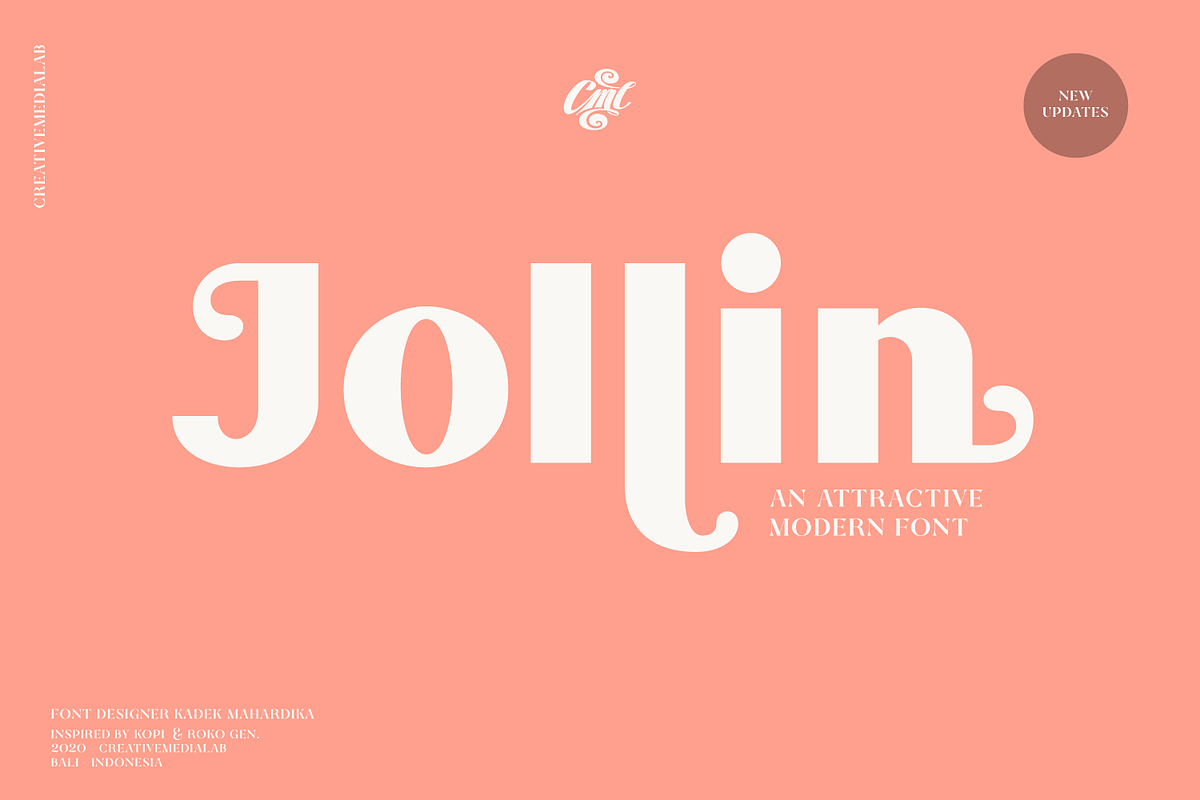
Jollin Font Free Download
Please note, you must purchase this font for commercial use. However, you can easily download Jollin Font Free Download for personal use and testing purposes. Jollin Font is a playful and modern typeface designed to add a touch of whimsy to your designs. Perfect for creative projects, children's materials, branding, and social media graphics, this font features rounded letterforms and a fun, approachable feel. Jollin Font Free Download works beautifully for projects that require a casual, friendly, and lively typography style. Whether you're creating a logo, a playful poster, or unique invitations, this font will bring a fresh and joyful vibe to your work. Download Jollin Font Free Download today and explore its potential before opting for a commercial license.